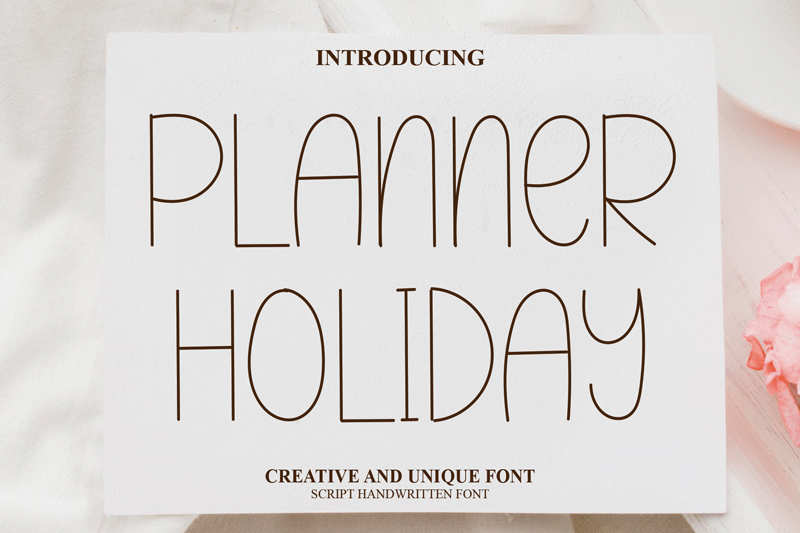
Preview and download Planner Holiday Font. Created by Belina Studio in Script Handwritten styles with Free for personal use license.
Font name: | Planner Holiday |
Author: | Belina Studio |
DETAILS special creative products for you, our products will give you an extraordinary experience. the latest style letters are perfect for wall displays, wedding invitations, social media post logos, advertisements, product packaging, product designs, labels, photography, watermarks, invitations, stationery, and any project that requires taste handwriting. Links for license and contact: ================================================== ========= https://scratchones.com/product/boyfriend/ gmail : afistakosongtujuh@gmail.com ================================================== ========= ATTENTION: WARNING!!! By installing or using this font, you agree to the Product Use Agreement: - This font has a FULL VERSION and is ONLY for PERSONAL USE. NO COMMERCIAL USE! - If you need CUSTOM PERMIT or COMPANY PERMIT please go to : ( www.scratchones.com ) - Any donations are greatly appreciated. Paypal account for donations: ( www.paypal.me/scratchones ) USE OF COMMERCIAL FONT WITHOUT PURCHASE OF LICENSE More... |